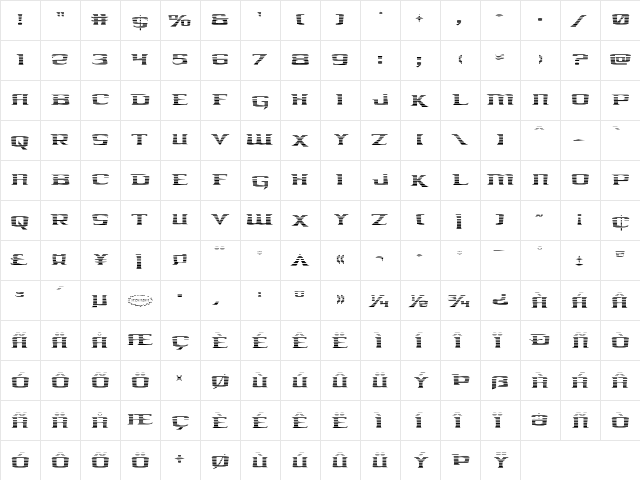
Kreature Kombat Gradient Regular
Design Context for Kreature Kombat Gradient Typeface
Kreature Kombat Gradient is a composed and adaptable typeface that performs quietly and consistently across a wide range of design contexts.